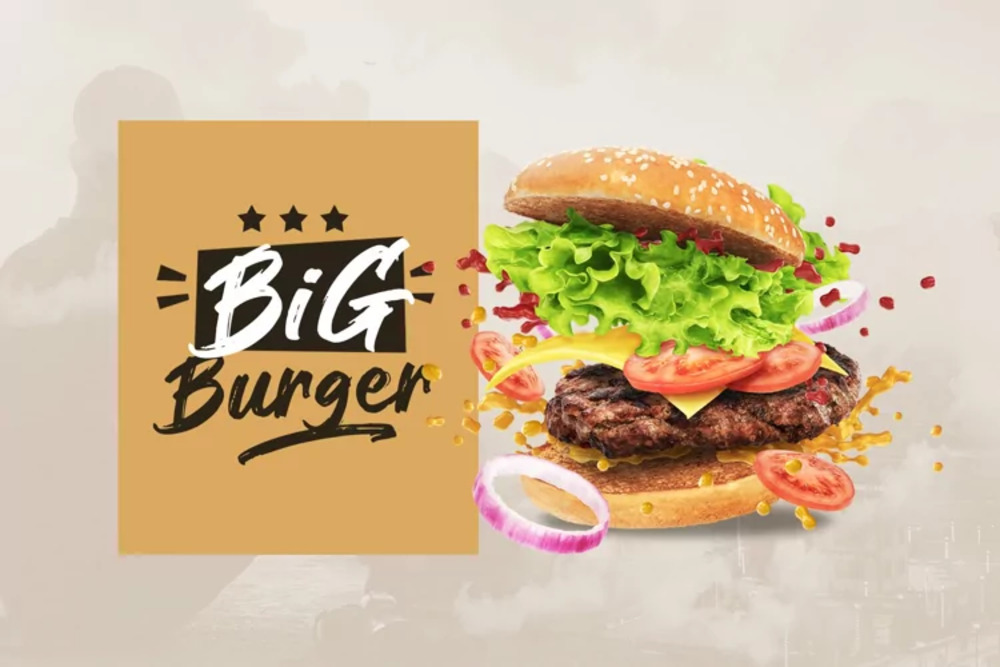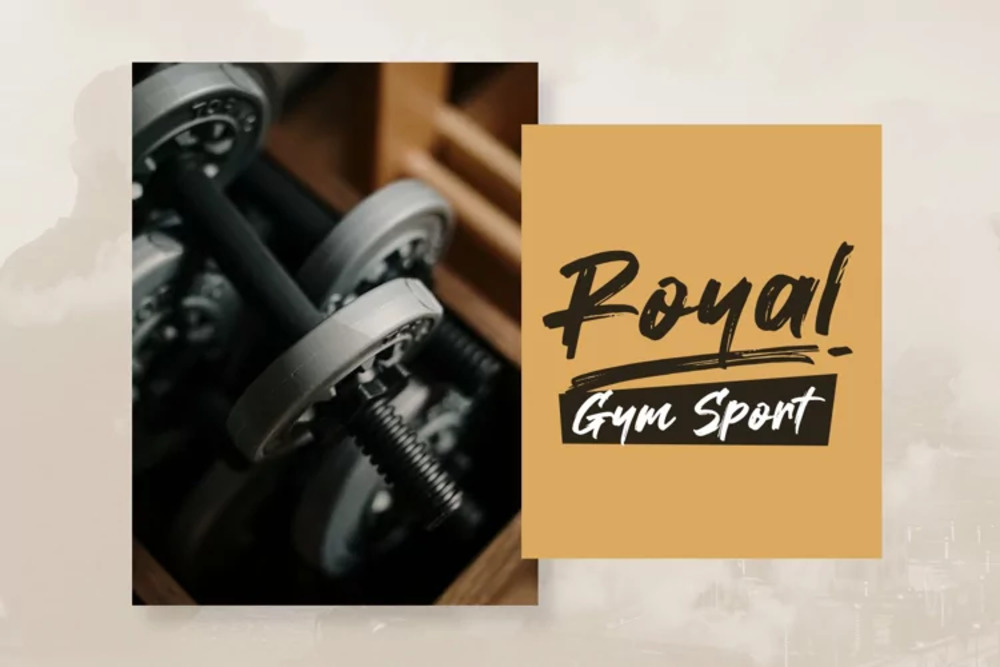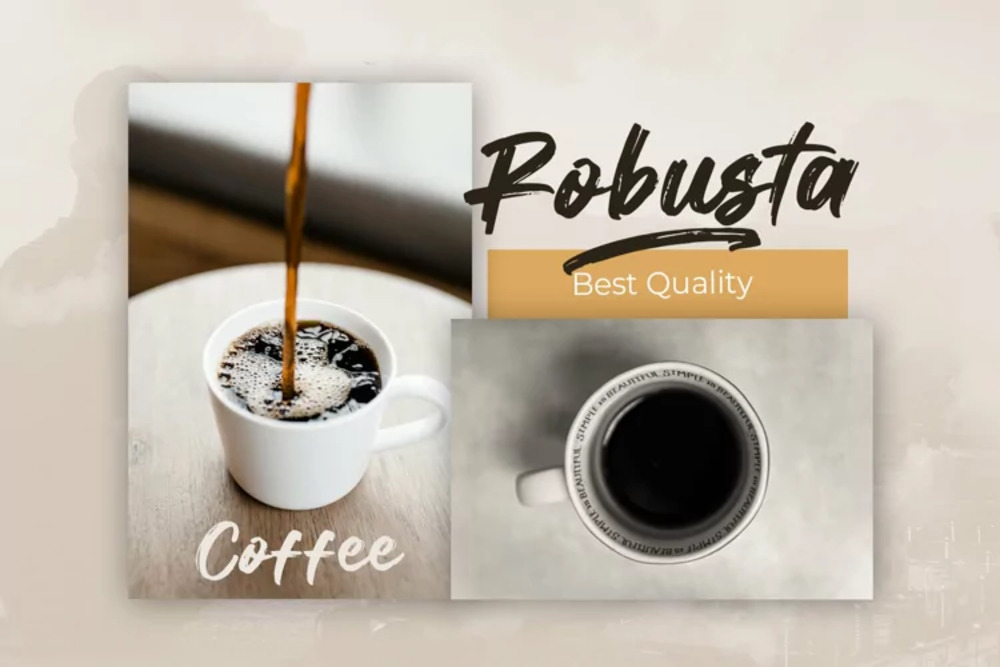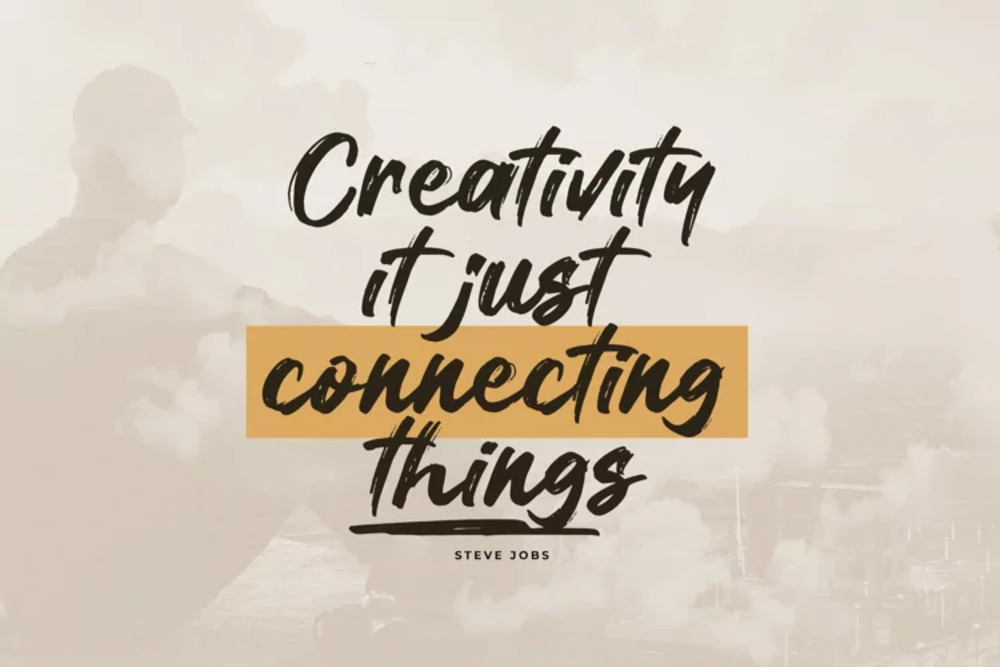
Makebond Font
Makebond is a bold, geometric sans-serif font with a strong and modern presence. Its clean lines and sharp angles create a sense of stability and professionalism. Ideal for branding, corporate design, and web projects, Makebond conveys confidence and clarity. Its versatile design makes it suitable for both headlines and body text, offering a contemporary and sophisticated aesthetic.